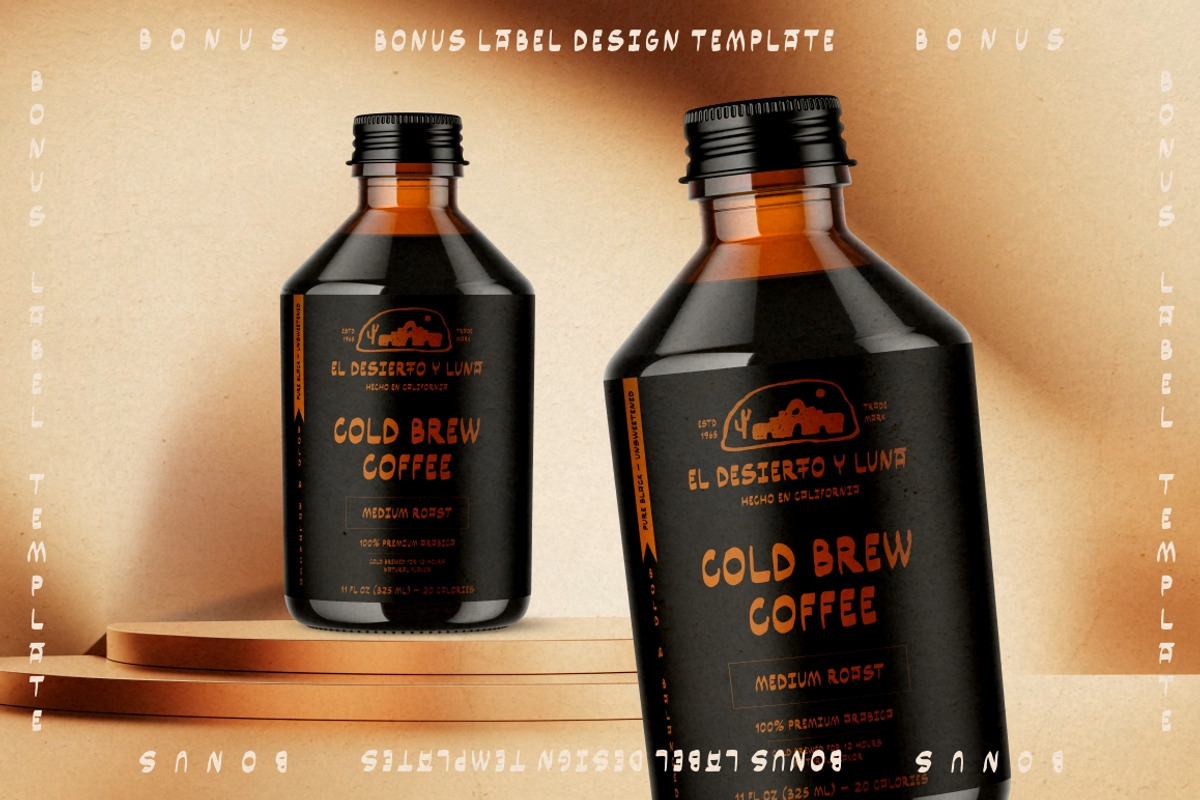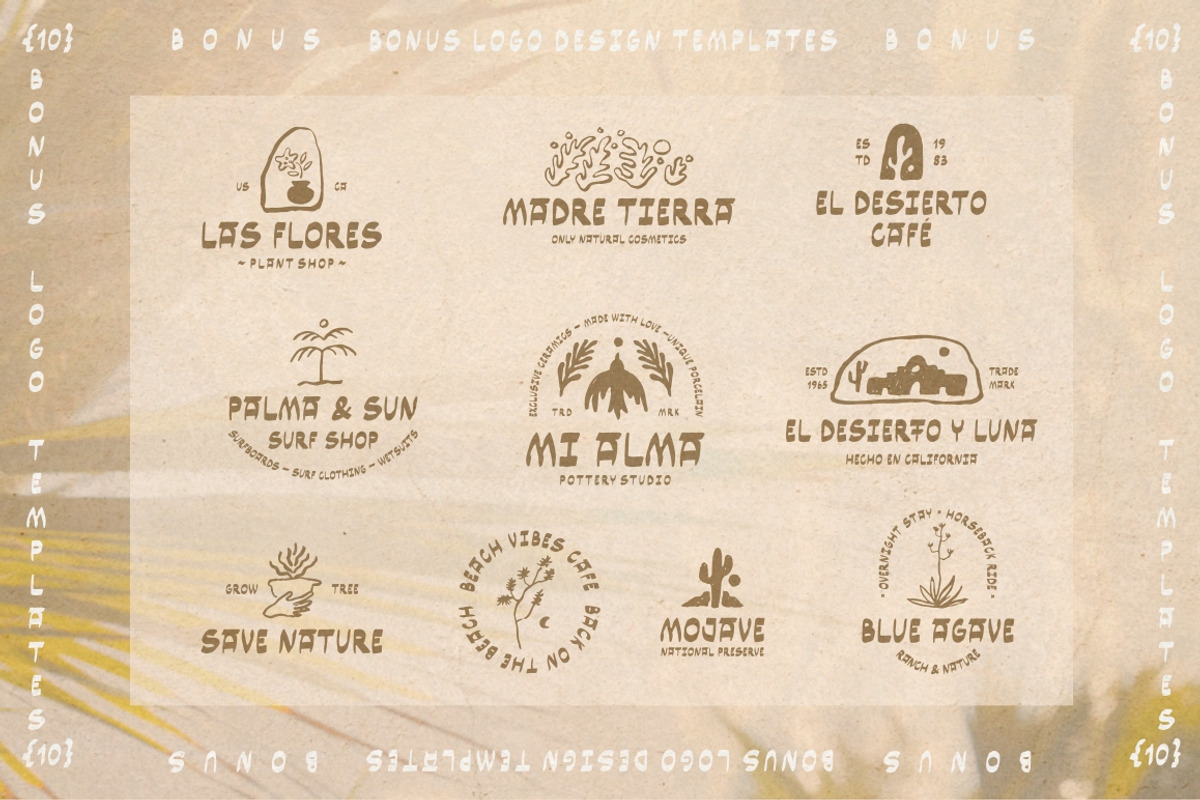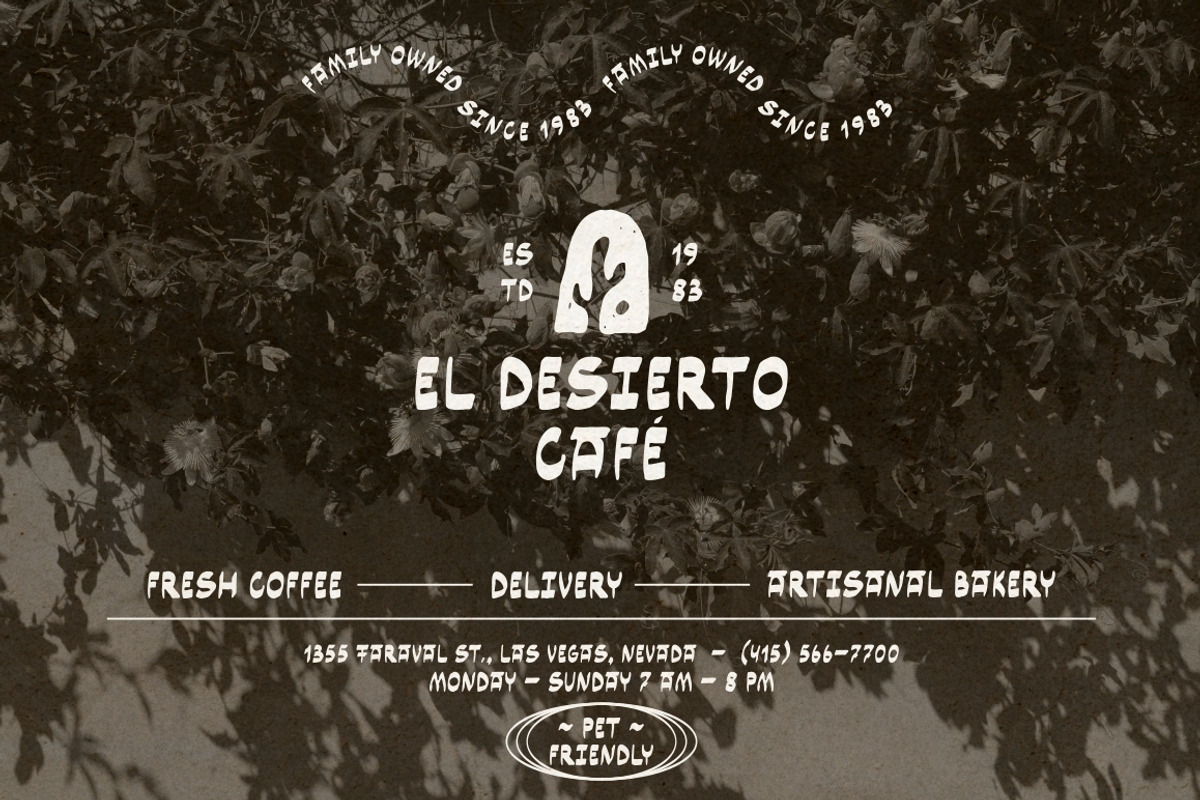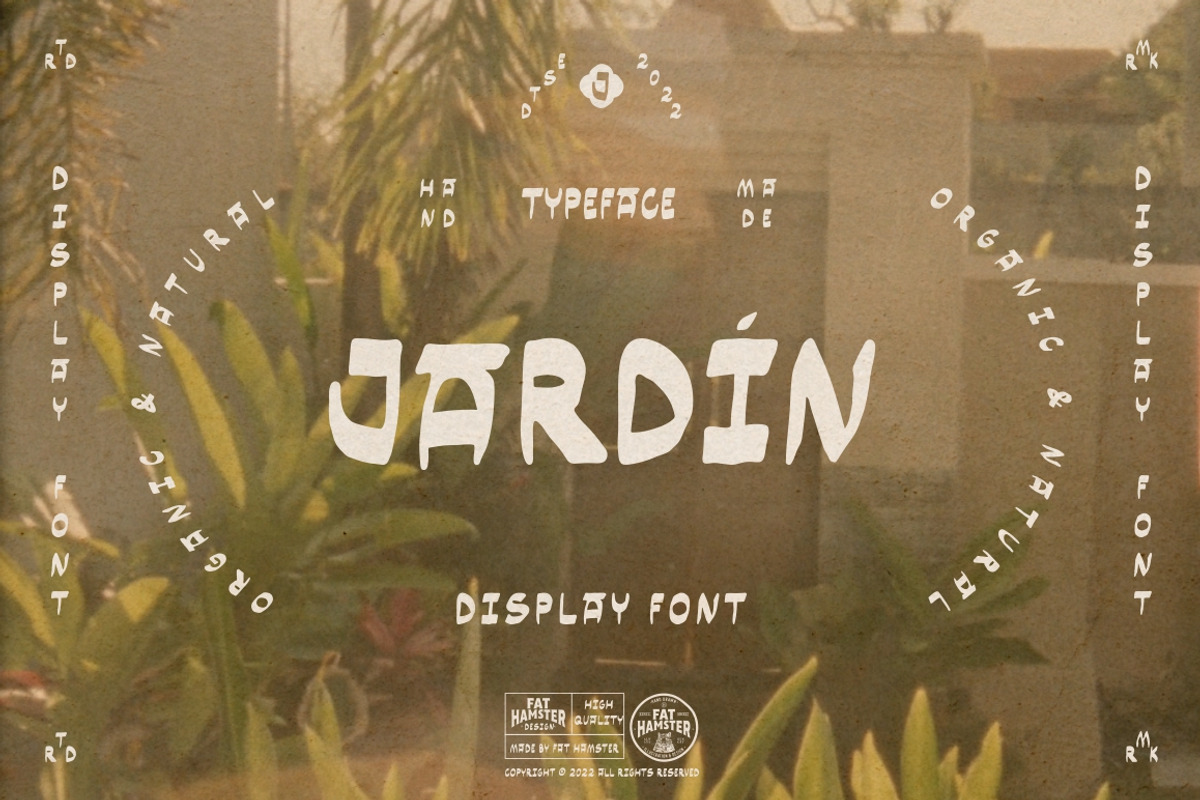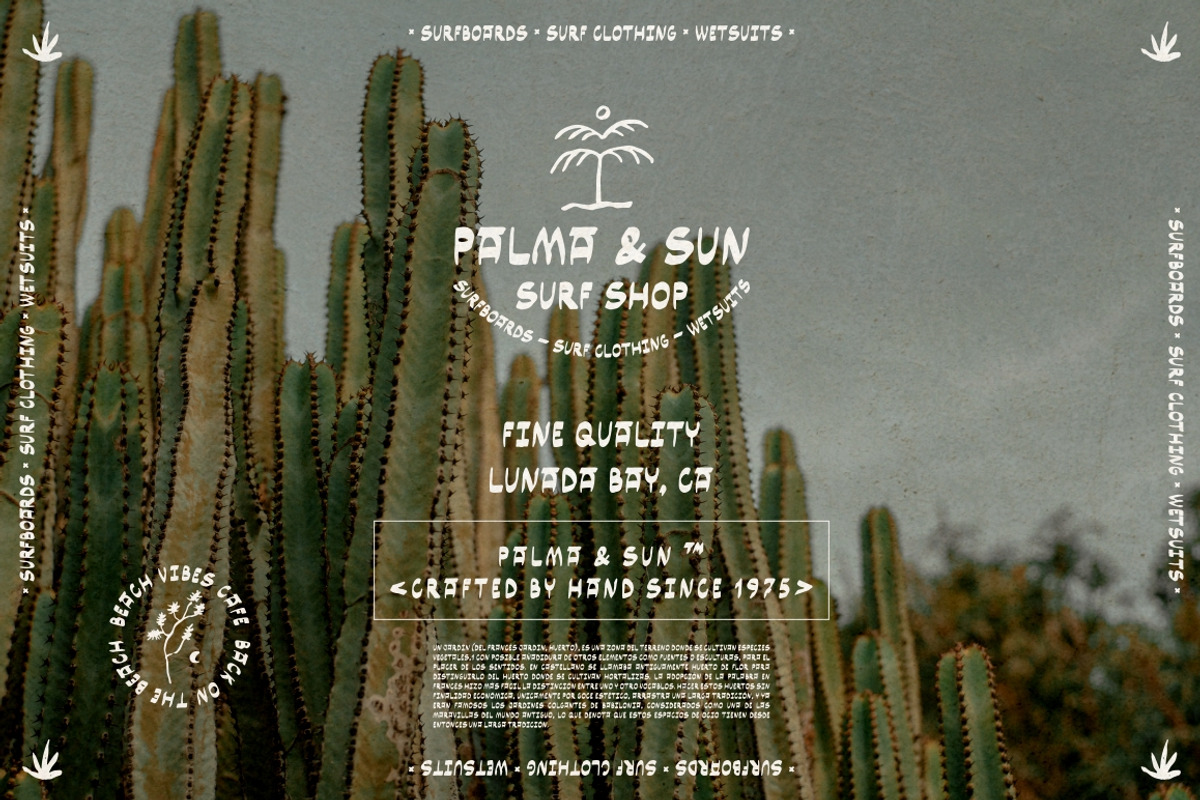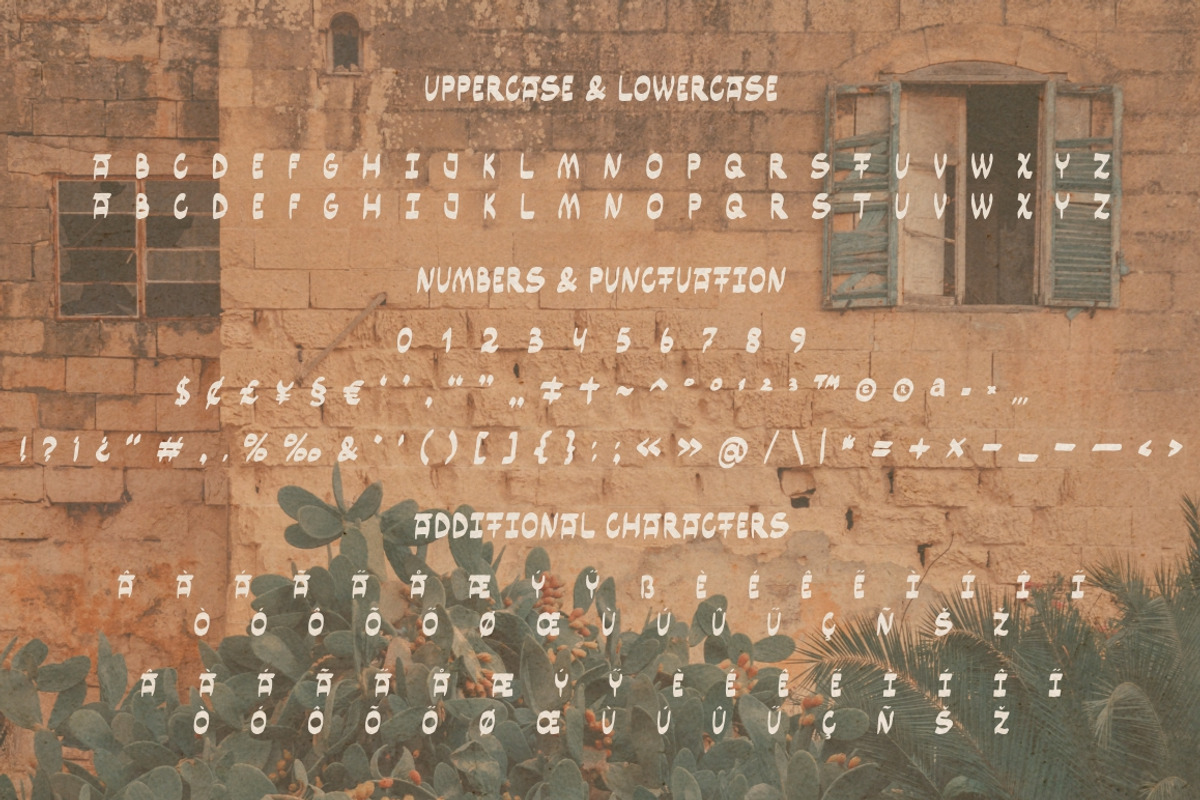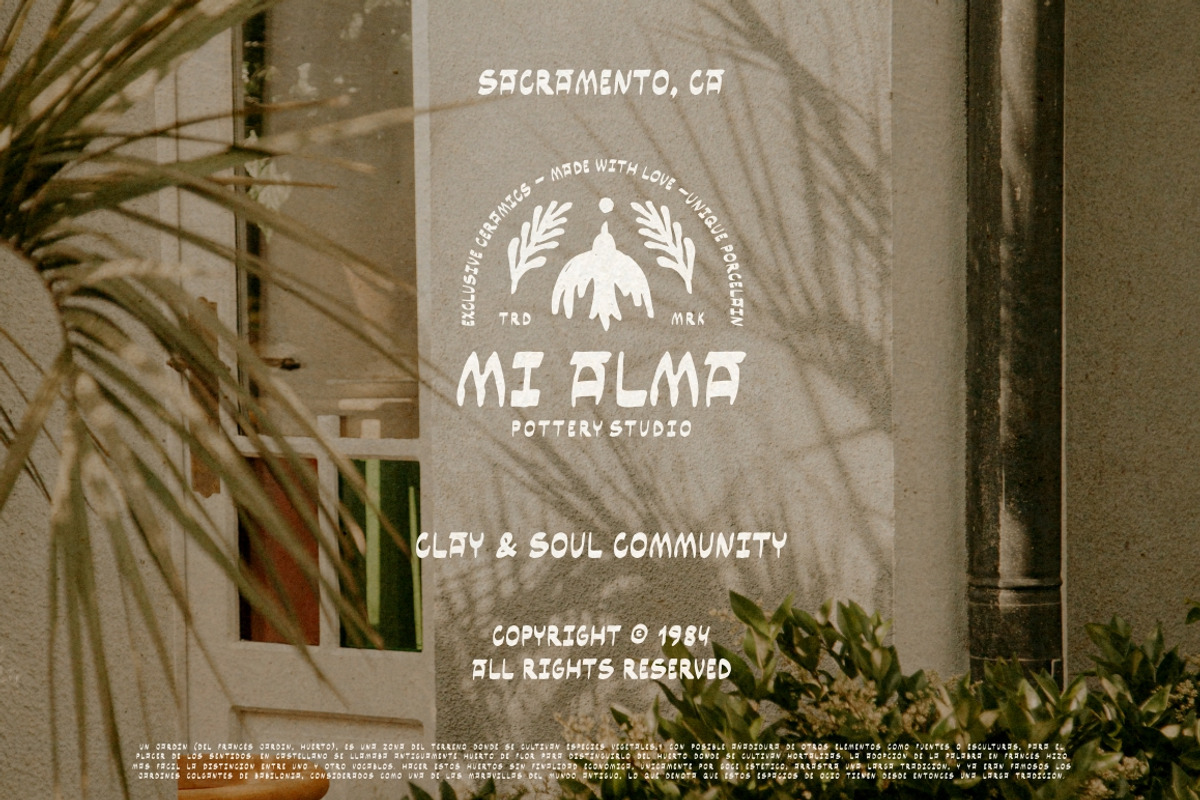
Jardin hand drawn display font
Jardin is a hand drawn display typeface
Introducing the brand new typeface Jardin. Warm, organic, playful uppercase hand drawn font. Jardin is a handcrafted typeface inspired by landscapes of the American Southwest and Mexico. Great for stand-out quotes, logo design and branding, book covers, packaging and label design, greeting cards and so much more!